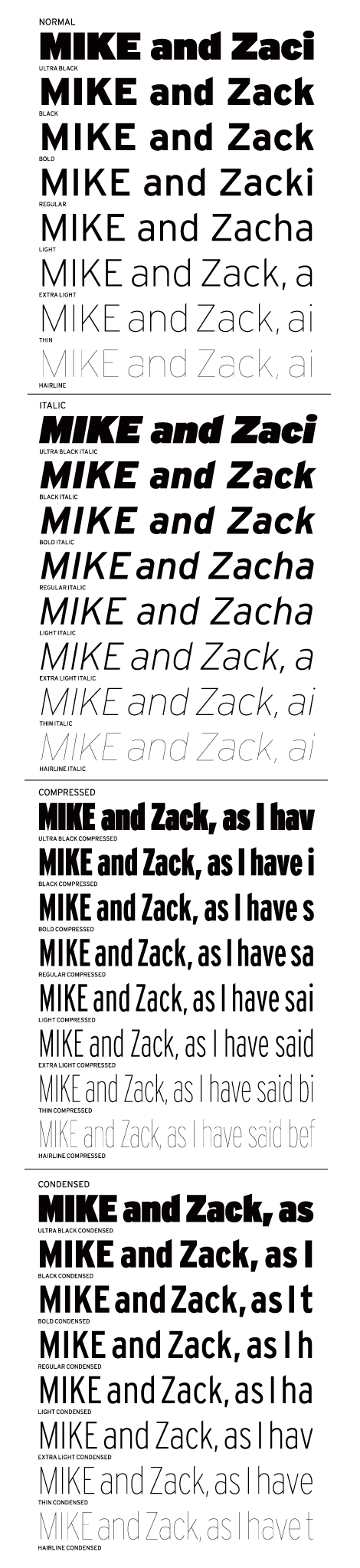
Interstate Volume 1 (32 fonts) (Font Bureau)
Interstate is a sans serif superfamily based on the signage alphabets of our Federal Highway Administration, letterforms absorbed at a glance everywhere we drive. Tobias Frere-Jones designed the original fonts in 1993 and 1994 and, with the help of Cyrus Highsmith, has expanded this superfamily into a plethora of enticing text and display styles. Among many uses, Interstate is recommended for Newspaper and Magazine use.FONTHAUS END USER LICENSE AGREEMENT